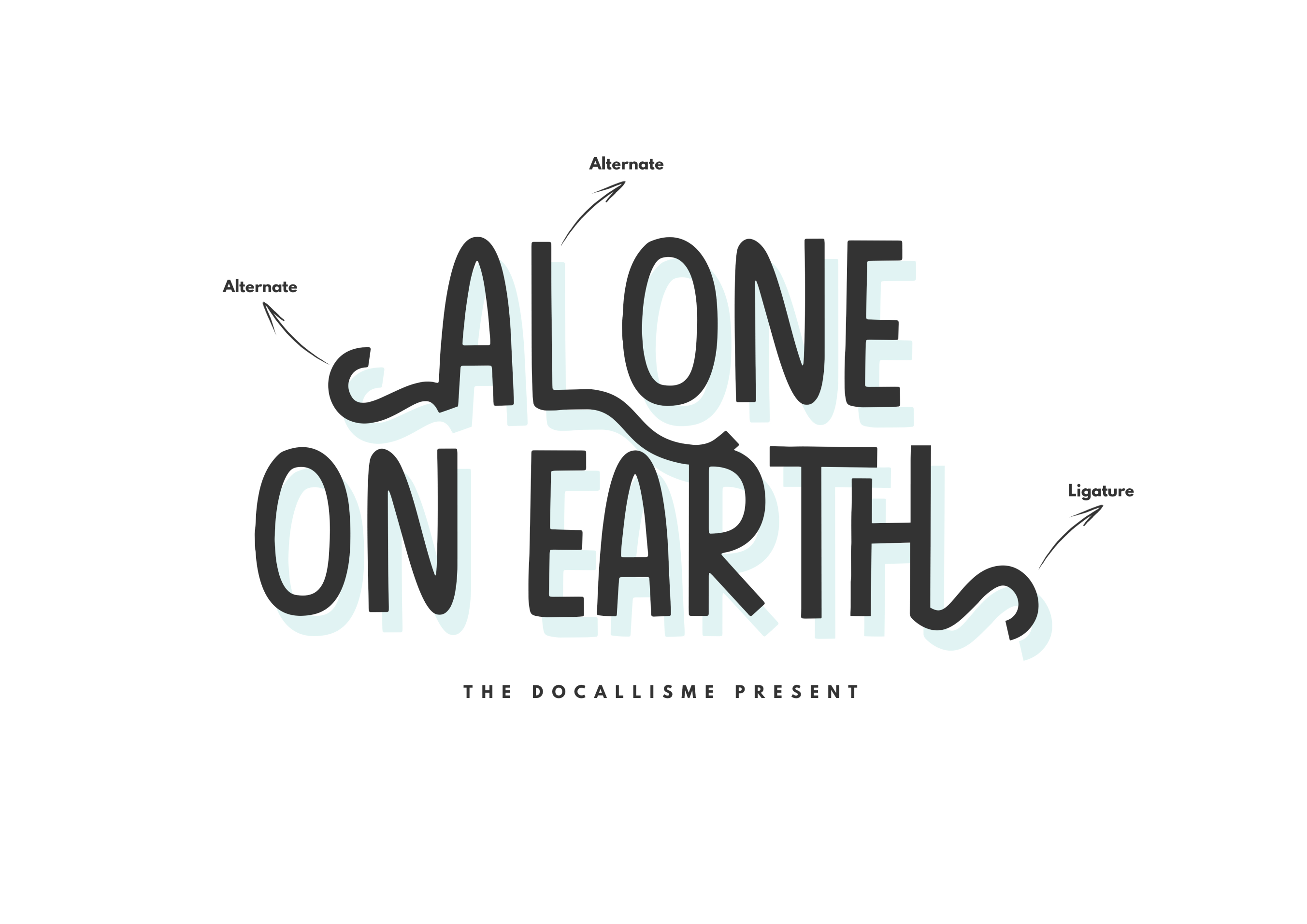
Alone On Earth by DCLL Studio
Clean, relaxed print-style handwriting with a laid-back feel
Alone on Earth is a fun, relaxed handwritten font for when you need something informal but still stands out on the page